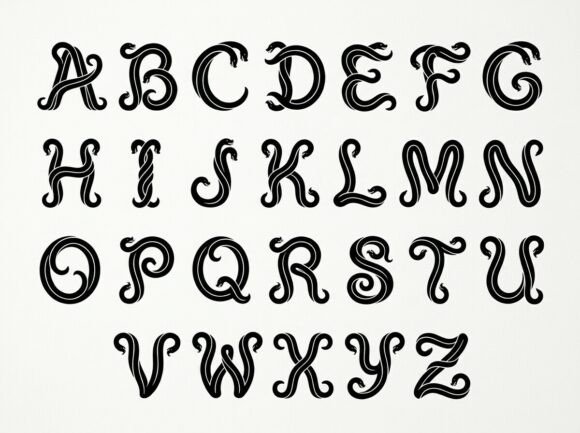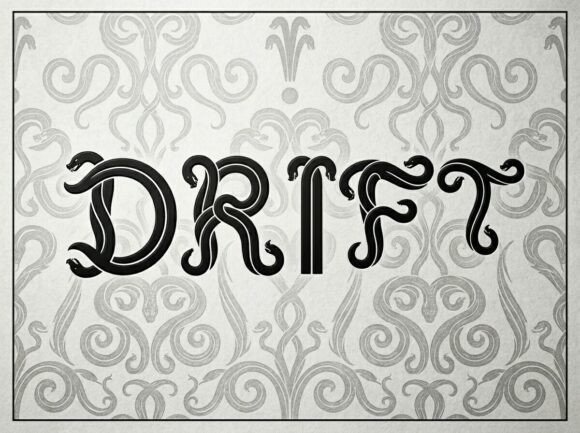
Unleash Ancient Mystery with Drift Font: Where Typography Meets Mythological Art
In the realm of typography, few fonts manage to capture the essence of mythological art and ancient mystery as effectively as Drift. This unique display font is a masterpiece where the art of lettering meets the mystique of serpent mythology. Drift is not just a font; it’s an experience, transporting you and your audience to a world where the elegance of classical design intertwines with the dark allure of the serpent.
The Artistry of Drift
Drift stands out with its bold, high-contrast typeface, meticulously crafted from the intertwined bodies of serpents. Each character is a work of art, featuring detailed scales that reflect light and shadow, adding depth and realism to the font. The terminals of the letters are ingeniously designed as striking snake-heads, bringing a fierce yet sophisticated element to the typography.
The fluid, rhythmic motion of Drift’s letterforms creates a hypnotic visual effect. This serpentine flow brings a dynamic energy to any design, making it perfect for projects that demand attention and convey a sense of power and mystery. Whether it’s the title of a fantasy book, a tattoo-inspired brand logo, a gothic event poster, or high-end streetwear graphics, Drift adds an unparalleled layer of depth and intrigue.
Applications of Drift
Fantasy and Fiction
For authors and publishers of fantasy and fiction, Drift offers a unique opportunity to set the tone for a story or series. Its ancient, mystical vibe is perfect for book titles, covers, and promotional materials, promising readers an adventure into realms both magical and mysterious.
Tattoo-Inspired Branding
Drift’s serpentine design resonates deeply with the tattoo culture, making it an ideal choice for tattoo artists, studios, and brands inspired by body art. The font’s bold and artistic nature translates well into logos, business cards, and promotional materials, embodying the fearless and free-spirited nature of the tattoo community.
Gothic Events and Fashion
For event organizers and fashion designers looking to make a statement, Drift offers a gothic elegance that is hard to match. Its use in posters, invitations, and branding materials for gothic events or fashion lines infused with a dark, mysterious allure can significantly elevate the thematic coherence and visual impact of the campaign.
Streetwear and Lifestyle
Drift also finds its place in the world of high-end streetwear and boutique lifestyle brands. Its unique blend of sophistication and edge makes it suitable for logos, packaging, and marketing materials, allowing brands to communicate their identity as bold, artisanal, and legendary.
Designing with Drift
When incorporating Drift into your designs, consider the power of contrast and color. Pairing Drift with simpler fonts can enhance its impact, creating a visual hierarchy that guides the viewer’s eye. Experimenting with metallic and dark color schemes can further amplify the font’s mythological and mysterious qualities.
Moreover, don’t hesitate to play with the scale and arrangement of the text. Drift’s detailed and artistic design means that it can shine as a standalone element or be integrated into more complex compositions. The key is to let the font’s serpentine elegance guide your creative process, ensuring that your final design feels both legendary and refined.
| Font Name | Drift Font |
| Author | mail.skygroup |
Drift is more than a font; it’s a statement. It’s for those who dare to venture into the unknown, who appreciate the art of the serpent, and who wish to imbue their projects with a sense of ancient mystery and dark elegance. With Drift, every word becomes a legend, every design a testament to the power of mythological art in modern typography.
Whether you’re a designer, a craftsperson, or simply someone who loves the blend of mythology and art, Drift offers a world of creative possibilities. So, unleash the serpent and let Drift guide your next project into the realm of the extraordinary.